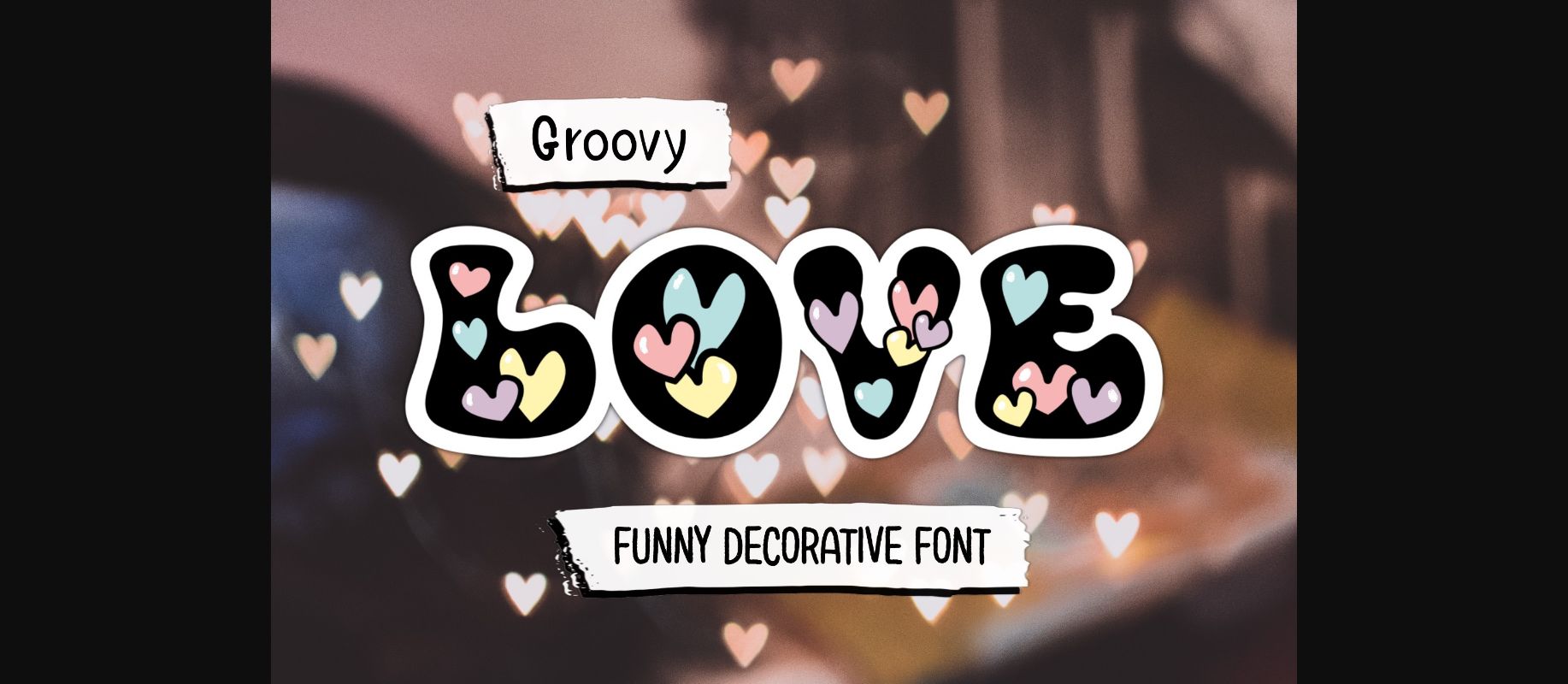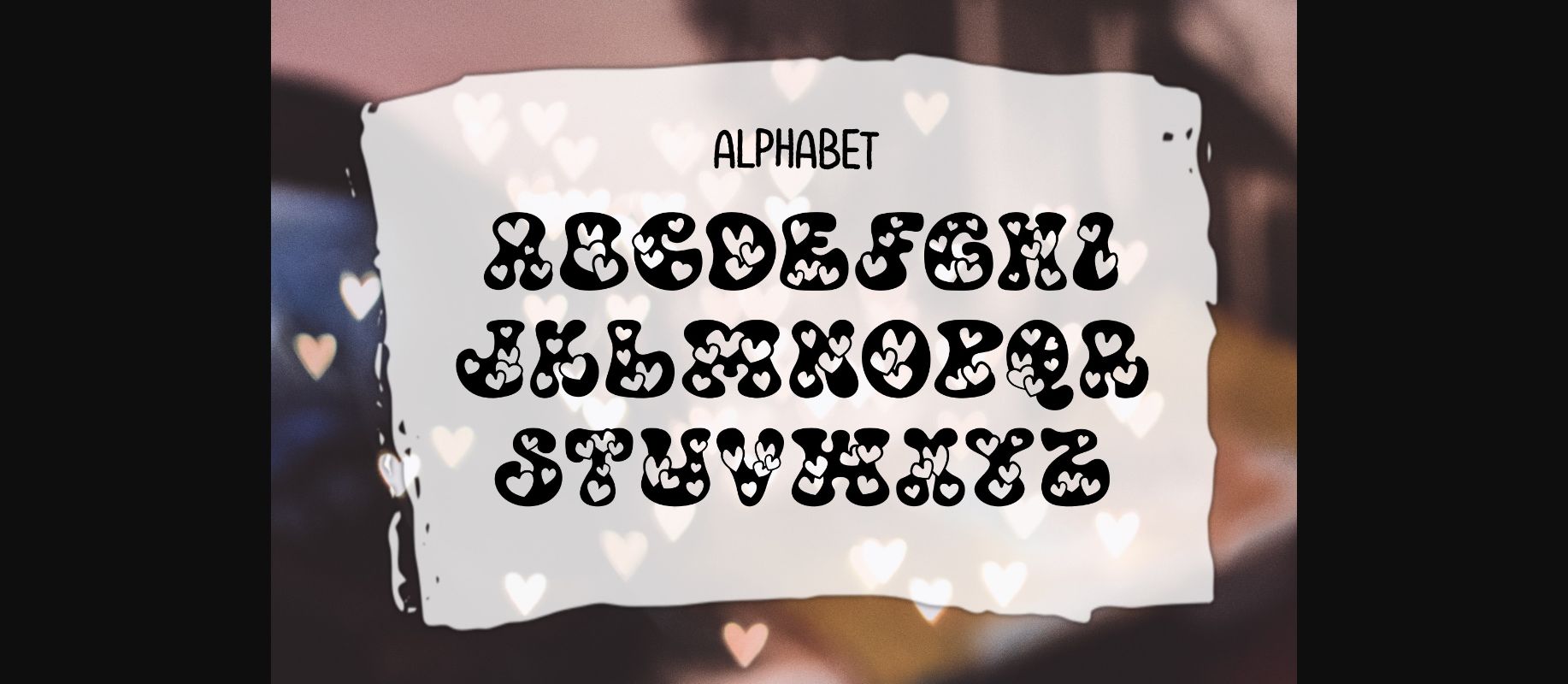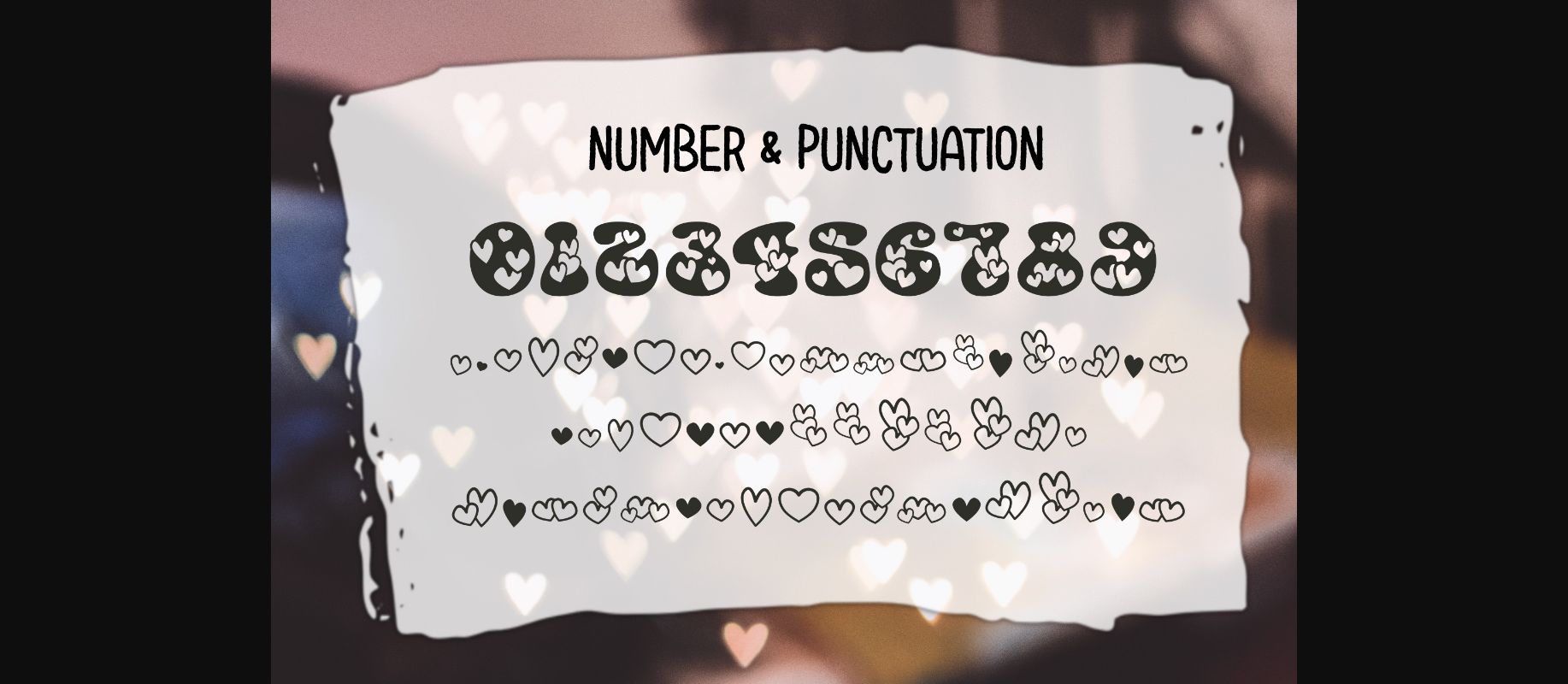
Groovy Love Font
About Groovy Love Font
Groovy Love is a fun and incredibly cute decorative font. Whimsical and a bit quirky, this font will brighten up each of your designs. Add it confidently to your projects, and you will love the results.